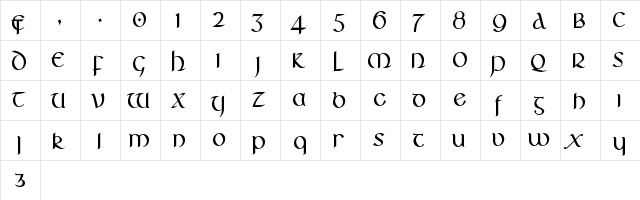
Huggles Regular
Design Context for Huggles Typeface
Huggles is a composed and adaptable typeface that performs quietly and consistently across a wide range of design contexts.